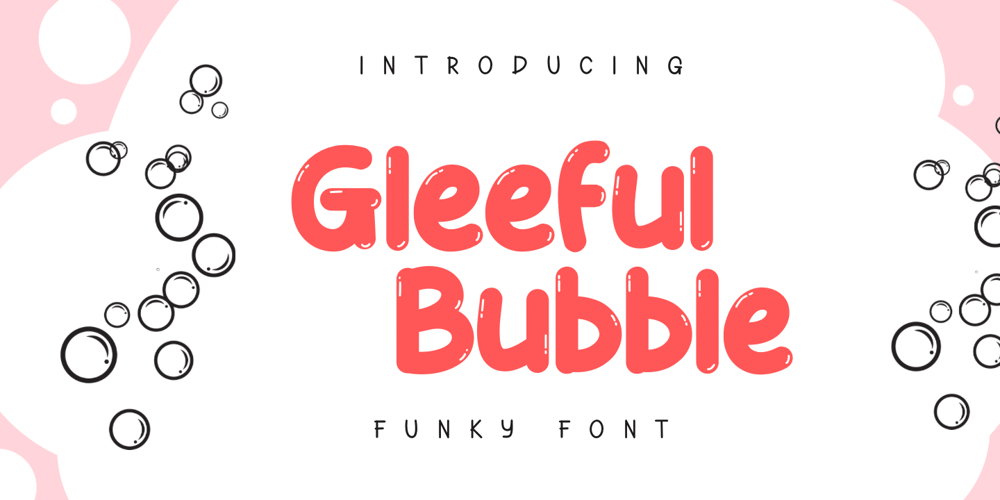
Gleeful Bubble Font Family was designed by David Perkasya and published by Insan Perkasya. Gleeful Bubble contains 1 styles and family package options. Gleeeful Bubble, a delightful font that bubbles with joy, featuring a hint of sparkling bubbles in each character. This playful typeface adds a touch of whimsy to your designs, infusing them with a sense of light-hearted cheer.Let Gleeeful Bubble be the choice that brings a burst of happiness and a sprinkle of effervescent charm to your creative projects.If you have any question, please contact us